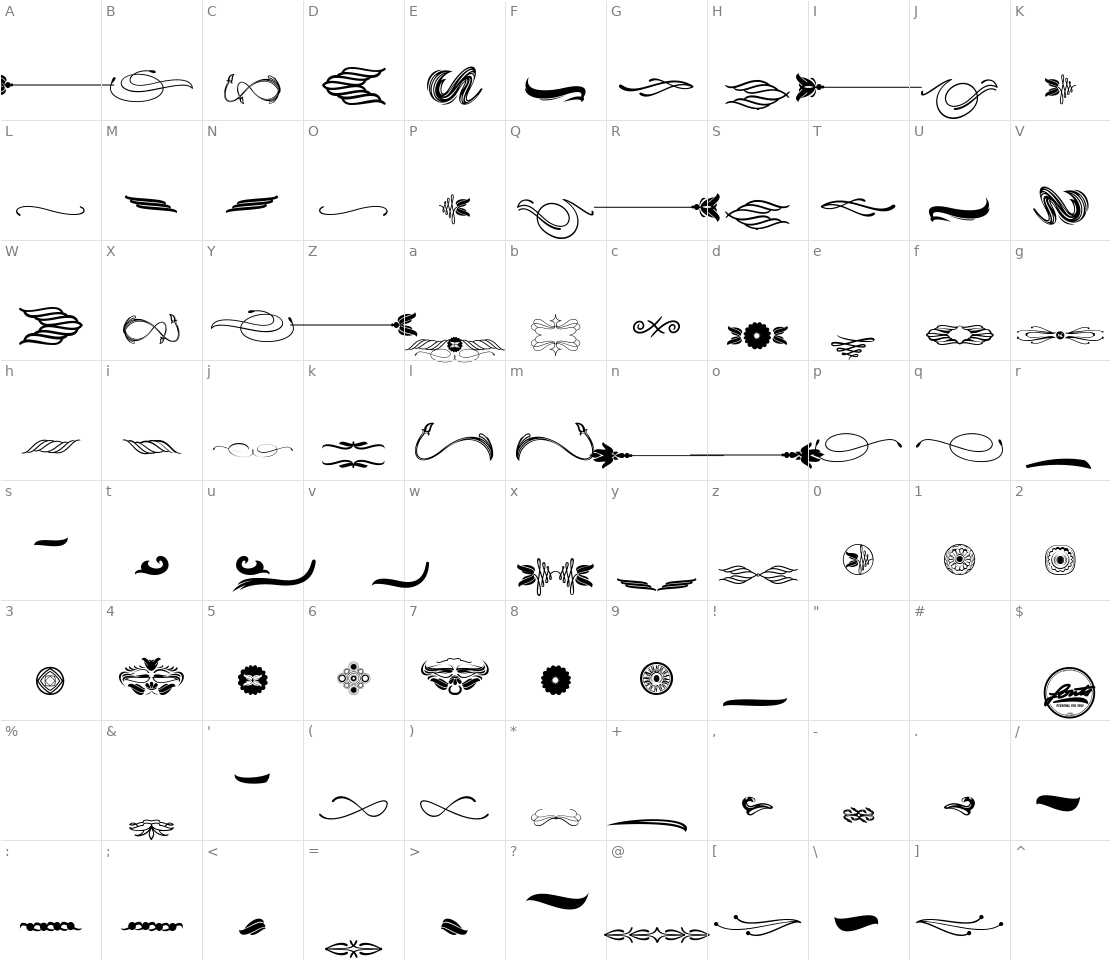
Sweet spot
Sweet spot is a set of decorative ornaments and flourishes by dcoxy (Greg Medina), offering elegant swashes, dividers, and border elements rather than traditional letterforms. The pieces have a refined, calligraphic quality that makes them useful for dressing up invitations, certificates, editorial layouts, and anywhere that needs a bit of visual punctuation between sections.